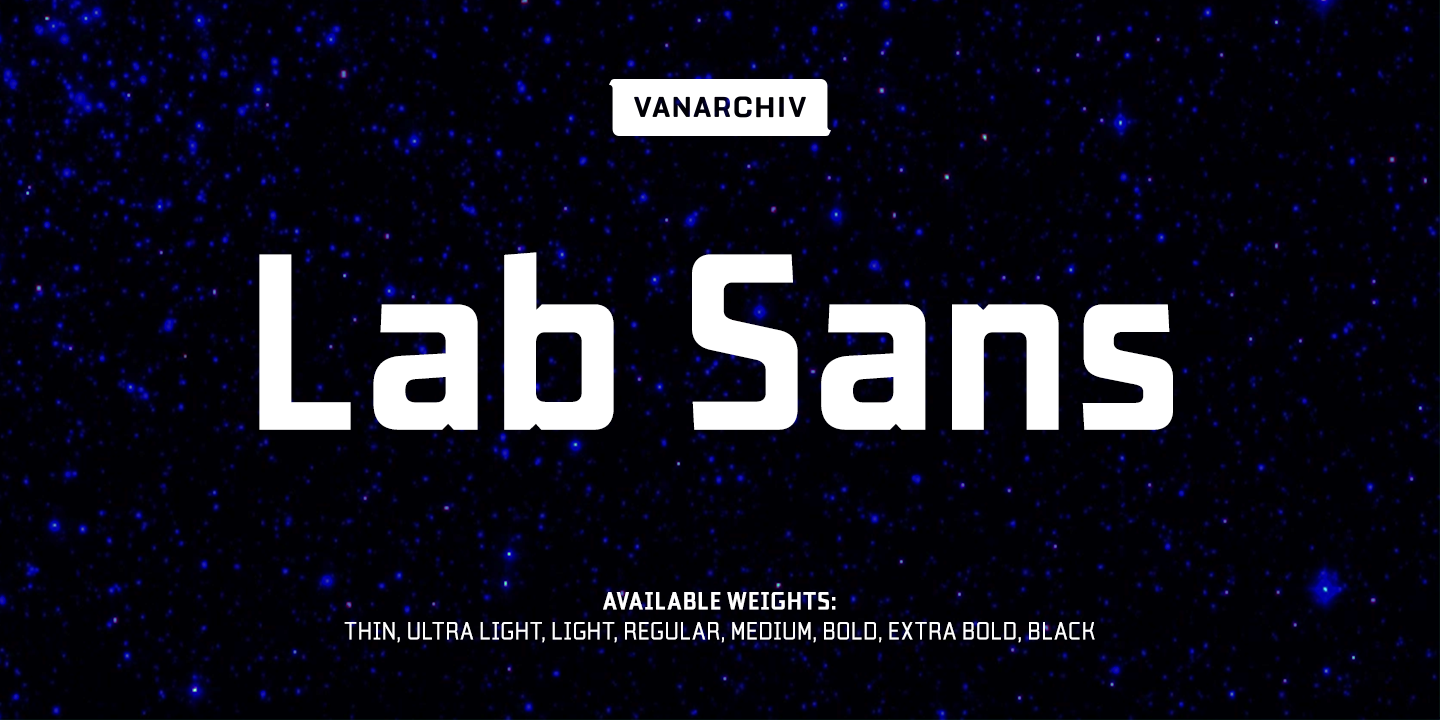
Lab Sans Pro Font is ideal for scientific research laboratories, medical testing facilities, pharmaceutical research institutes, clinical trial documentation, laboratory equipment interfaces, scientific publication layouts, research methodology presentations, experimental protocol guides, analytical instrumentation branding, and professional laboratory communications. This precise typeface excels in applications where scientific accuracy and laboratory professionalism need to be communicated with clinical precision and research reliability that embodies the essence of systematic scientific investigation and the methodical excellence found in professional laboratory environments and controlled experimental procedures.
What makes Lab Sans Pro Font exciting is its remarkable ability to project the systematic precision and controlled methodology that defines professional laboratory research through its clinically clean letterforms that embody the kind of sterile accuracy and methodical reliability that scientific research demands for credible results and reproducible experiments. The font captures the essence of laboratory excellence with its systematically structured construction and scientifically optimized proportions that suggest the careful controls and precise measurements that characterize quality research protocols and professional scientific methodology. Its meticulously engineered character details and laboratory personality create an atmosphere of scientific confidence that resonates with researchers, laboratory technicians, and scientific institutions who understand the critical importance of precision, accuracy, and systematic methodology in professional laboratory applications and scientific research.
The Lab Sans Pro Font family typically includes Light, Regular, Medium, and Bold weights, each maintaining the signature laboratory characteristics and scientific precision. Some versions offer comprehensive character sets with scientific symbols and laboratory notation, specialized variants optimized for clinical documentation and research publications, and alternative elements designed for laboratory equipment interfaces and scientific instrumentation displays. The family may also include condensed styles for efficient research layouts and display cuts designed for maximum scientific impact in laboratory and research applications requiring authentic scientific credibility and professional laboratory authority.
Whether you're creating laboratory brand identities, scientific research materials, or clinical documentation systems, Lab Sans Pro Font Free Download delivers the perfect scientific precision your research-focused projects deserve. Its laboratory character and professional styling make it an invaluable asset for research institutions, pharmaceutical companies, and scientific organizations working in laboratory research, clinical testing, and scientific investigation sectors where authentic laboratory credibility and systematic scientific precision are essential for establishing trust with the scientific community and maintaining the highest standards of research excellence and experimental reliability.